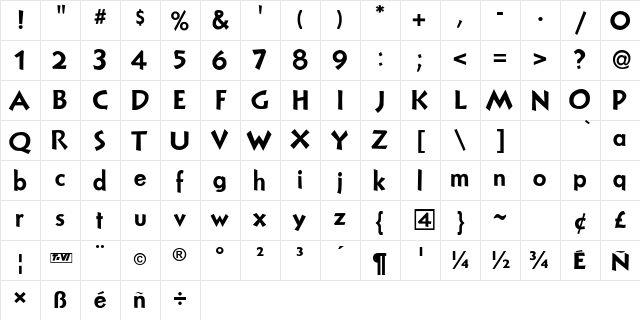
NuevoLitho Plain
Design Context for NuevoLitho
NuevoLitho is a composed and adaptable typeface that performs quietly and consistently across a wide range of design contexts.
Pro Tip: Use NuevoLitho in both headline and body roles to test its range before committing to a single application.